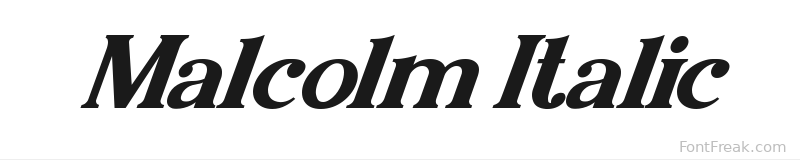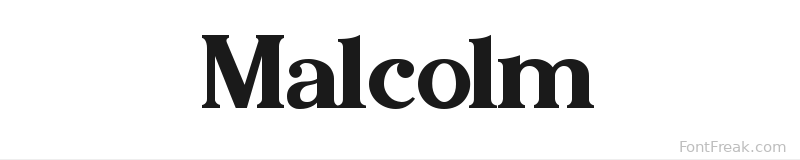
Malcolm
Malcolm Italic
About Malcolm
The Malcolm font, created by Kong Font, is a striking serif typeface that beautifully balances elegance and modernity. Its design features a medium stroke weight, offering a sense of stability while maintaining a refined appearance. The contrasting thick and thin strokes lend a dynamic quality to the characters, enhancing their visual appeal. The spacing is thoughtfully executed, ensuring readability while providing a polished look that is well-suited for various applications. The italic version adds an extra layer of sophistication, making it ideal for projects that require a touch of flair.
Malcolm is versatile and can be effectively utilized in a range of contexts. It is perfect for wedding invitations, where its elegant style can help convey sentiment and formality. Additionally, it shines in movie posters, where its bold presence can capture attention and set the tone for the film. Restaurant menus can benefit from Malcolm's aesthetic charm, making dishes appear more enticing and sophisticated. Moreover, this font is an excellent choice for branding projects, allowing small business owners to create a distinct identity that stands out in a crowded marketplace.
The target audience for the Malcolm font includes graphic designers looking for a unique typeface to enhance their projects, small business owners aiming to establish a memorable brand presence, and content creators who desire to elevate their visual storytelling. The Malcolm font free download makes it accessible for anyone seeking to incorporate a high-quality typeface into their work.
In summary, Malcolm stands out due to its elegant serifs, balanced proportions, and versatility across various applications. Its contemporary yet classic design makes it a valuable addition to any typographic toolkit, allowing users to create visually striking and memorable content.